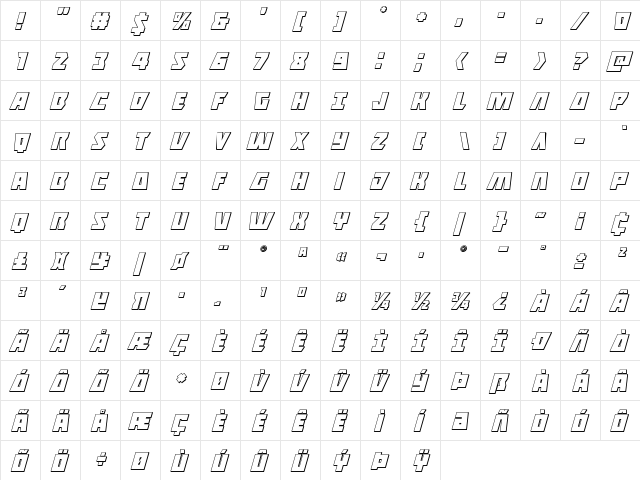
Halfshell Hero 3D Italic Italic
Design Context for Halfshell Hero 3D Italic Typeface
Halfshell Hero 3D Italic is a composed and adaptable typeface that performs quietly and consistently across a wide range of design contexts. Its italic angle brings a sense of urgency and motion to the letterforms.
Pro Tip: Try Halfshell Hero 3D Italic for annotation and caption copy alongside an upright companion — the contrast in angle creates a dynamic but ordered typographic system.